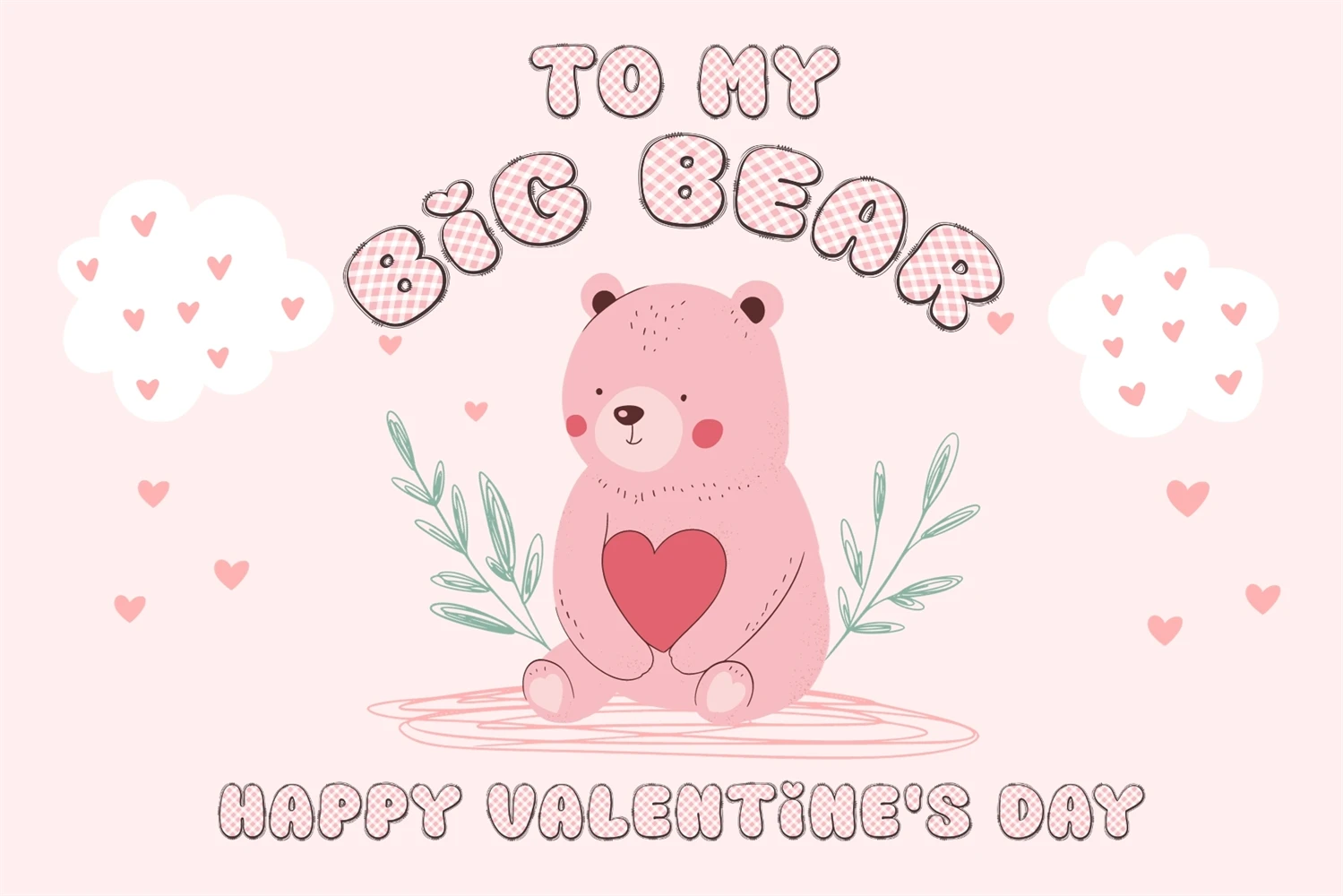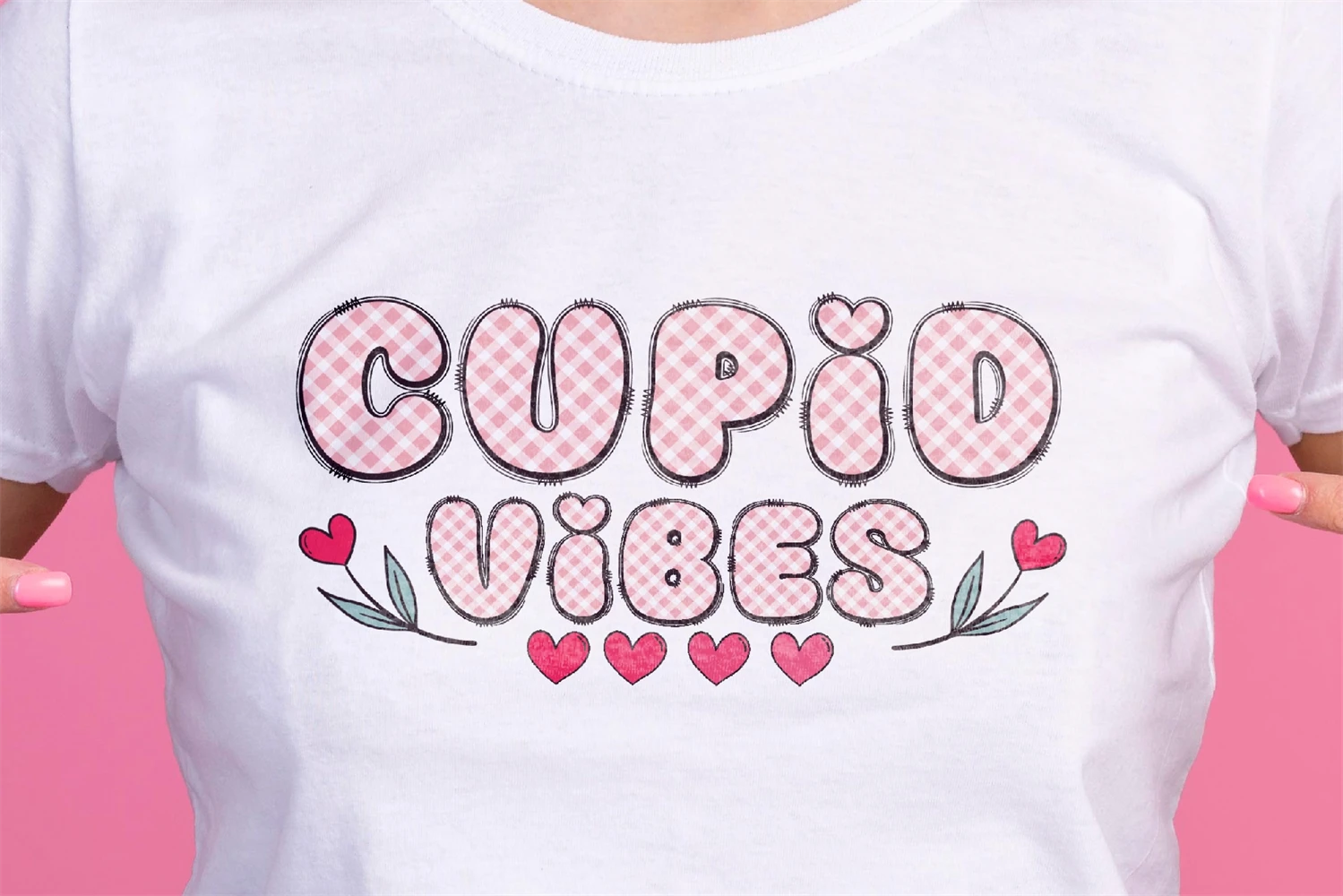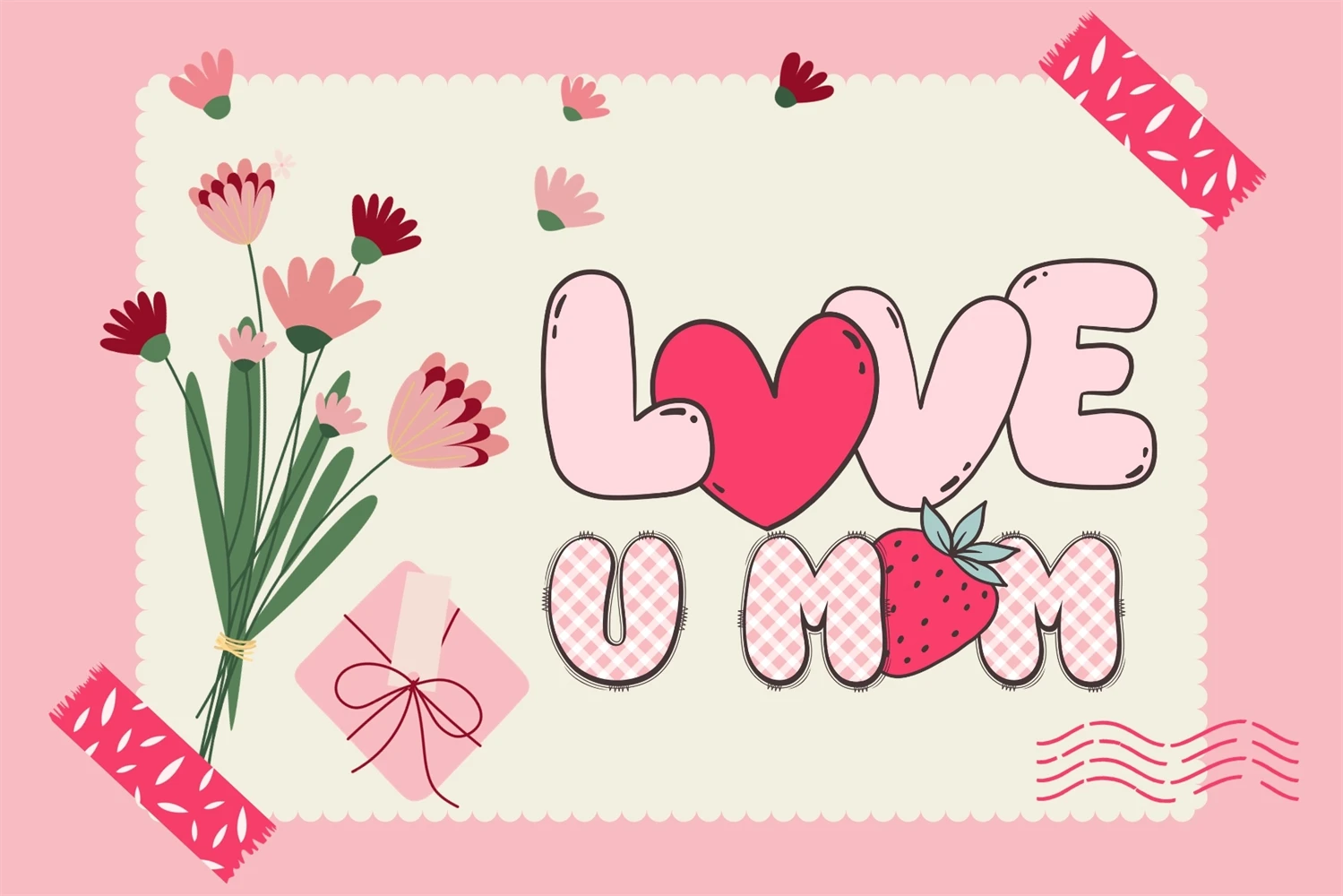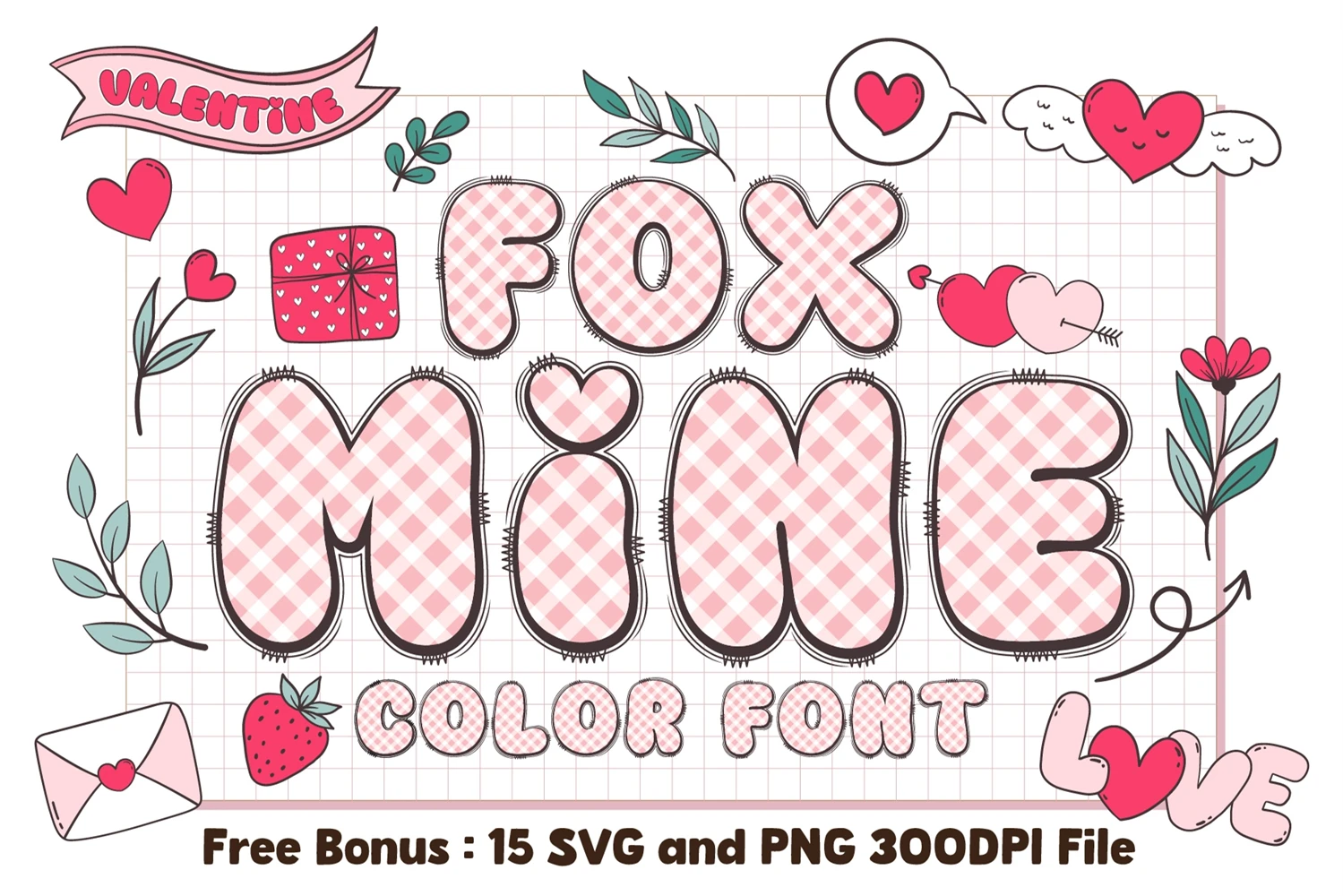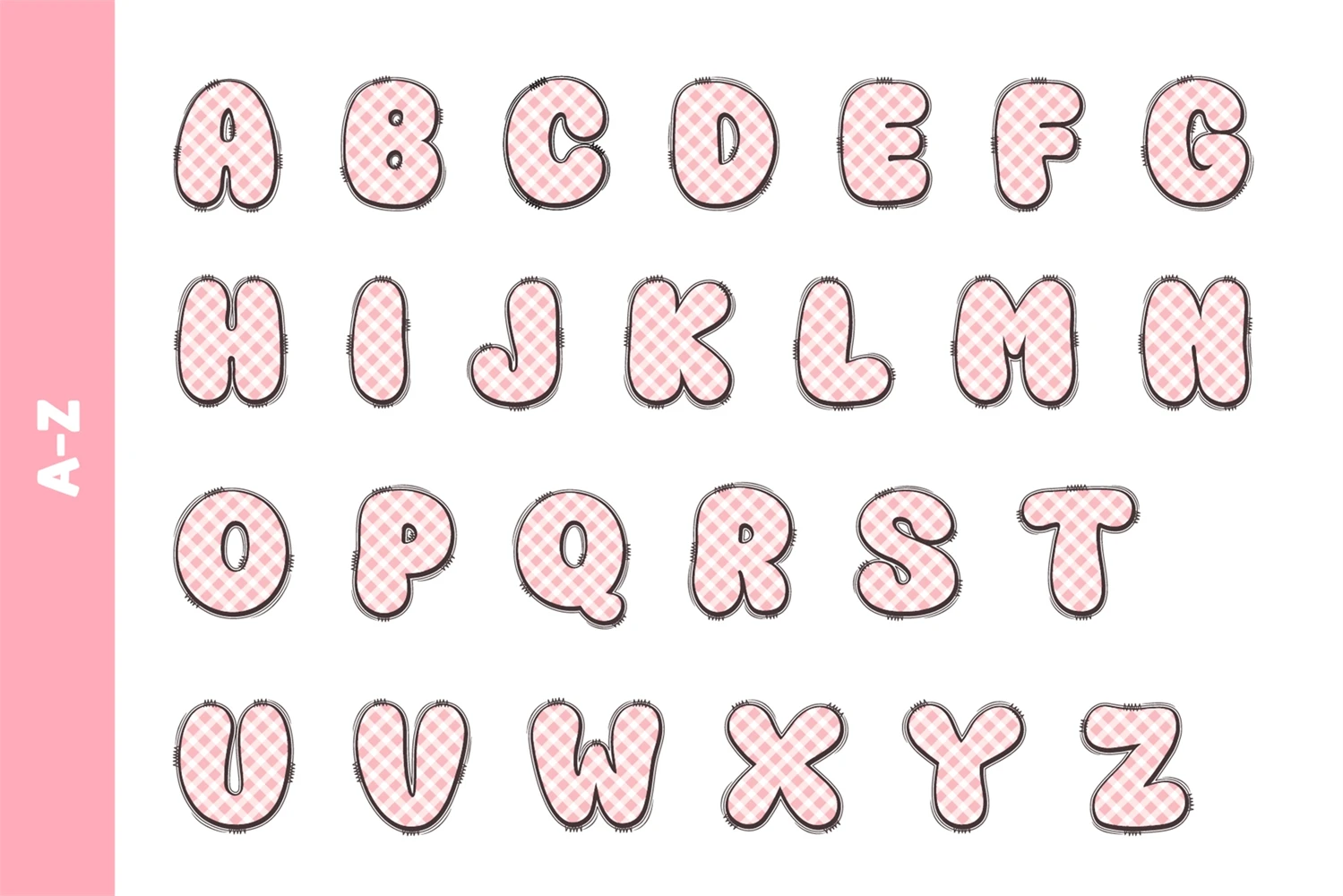
Fox Mine Its a decorative font and Color Font, a cute style, and fun. It is perfect for your Valentine's Day designs - or any design!. Fall in love with its authentic feel and use it to create gorgeous invitations, beautiful stationary art, eye-catching social media posts, and cute greeting cards. Add it now to your fonts library, and start creating spectacular designs!